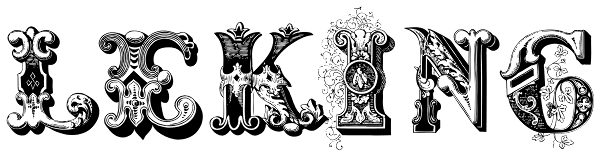
LeKing
LeKing is a Frankenstein of vintage ornamental typefaces of the past centuries. Each character is a collage of different bits of different letters. The font has the classic elegant feel of the old ornamental typefaces, combined with a modern and...